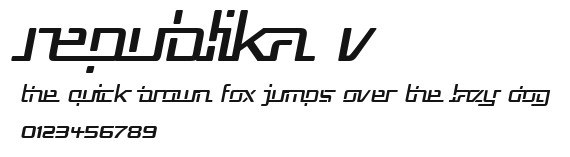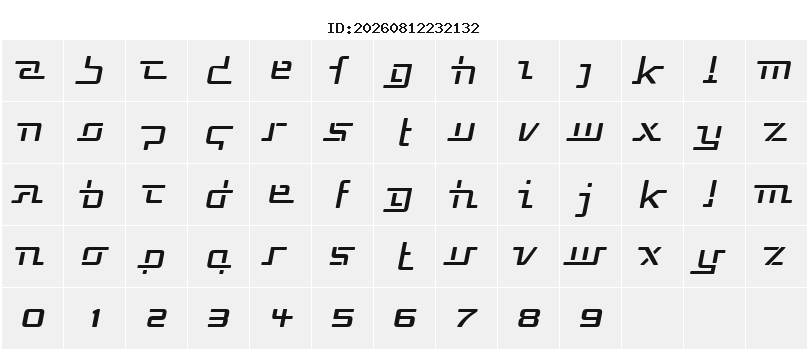
Republika V Preview
• Font Name: Republika V
• Full Font Name: Republika V Italic
• Designer: Apostrophe
About Republika V.ttf
Republika V.ttf is a modern, elegant sans-serif font designed for ultimate readability and visual harmony. Perfect for branding, headlines, web design, and print materials.